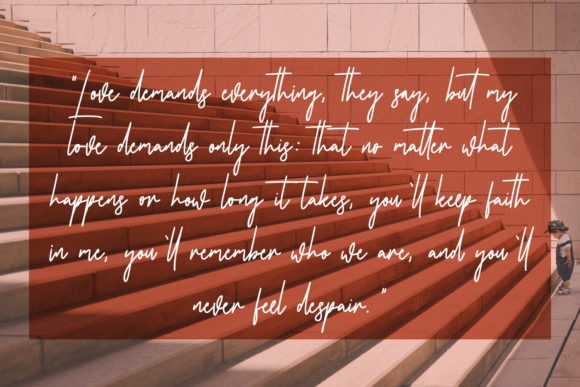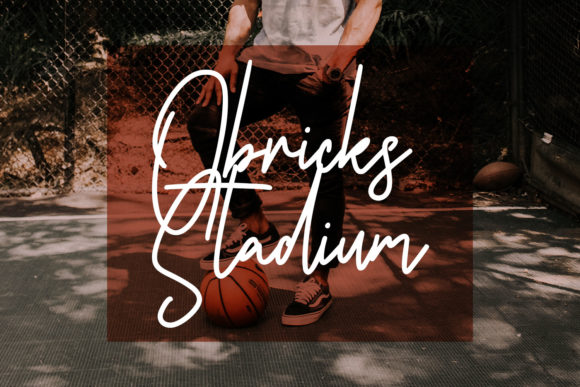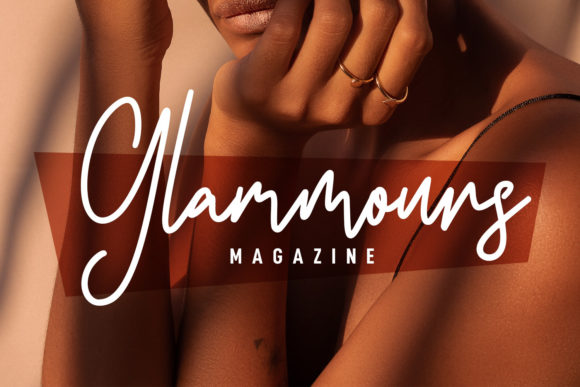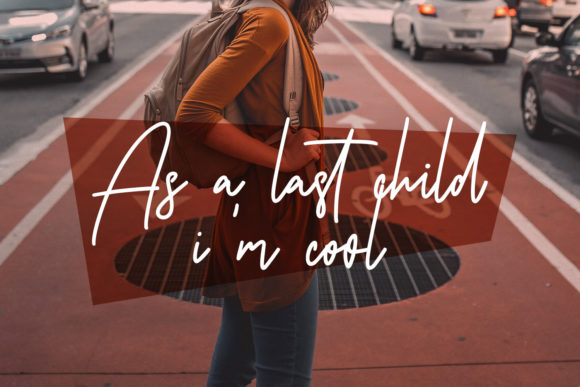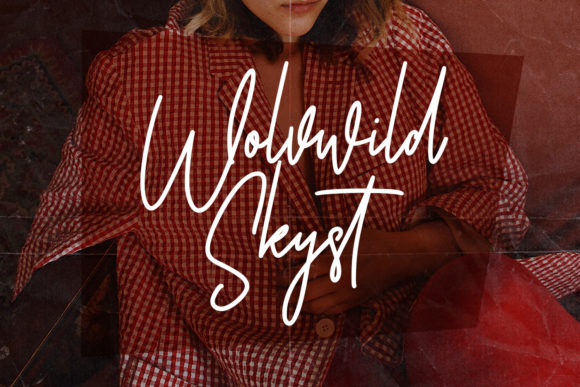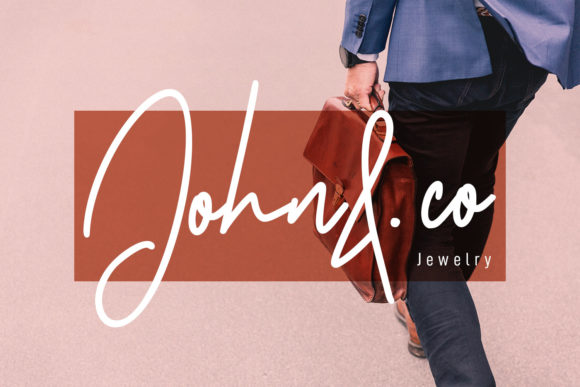
Betsyclove Font: Add a Touch of Romance to Your Designs
Are you looking for a font that can add a romantic feel to your designs? Look no further than Betsyclove, an enchanting handwritten font that is perfect for a wide range of applications. From greeting cards to headlines, Betsyclove is a versatile script font that is sure to captivate your audience.
The Charm of Betsyclove
Betsyclove is a beautifully crafted font that exudes elegance and sophistication. Its handwritten style gives it a personal and intimate feel, making it perfect for designs that require a touch of warmth and personality. The font’s flowing curves and delicate lines create a sense of movement and fluidity, adding a dynamic touch to any design.
One of the best things about Betsyclove is its versatility. This font can be used for a wide range of applications, from:
- Greeting cards: Add a personal touch to your greeting cards with Betsyclove’s elegant and cursive script.
- Headlines: Make your headlines stand out with Betsyclove’s bold and eye-catching style.
- Logos: Create a unique and memorable logo for your brand with Betsyclove’s distinctive and sophisticated font.
- Social media graphics: Add a touch of elegance to your social media graphics with Betsyclove’s beautiful and flowing script.
- Invitations: Create stunning invitations for weddings, parties, and other special events with Betsyclove’s romantic and whimsical style.
Why Choose Betsyclove?
So, why choose Betsyclove over other fonts? Here are just a few reasons:
- Unique and distinctive: Betsyclove is a one-of-a-kind font that will set your designs apart from the rest.
- Elegant and sophisticated: Betsyclove’s elegant and sophisticated style makes it perfect for designs that require a touch of luxury and refinement.
- Easy to read: Despite its elegant style, Betsyclove is easy to read and understand, making it perfect for body text and headlines.
- Highly versatile: Betsyclove can be used for a wide range of applications, from digital designs to print materials.
Tips for Using Betsyclove
Here are a few tips for getting the most out of Betsyclove:
- Use it sparingly: While Betsyclove is a beautiful font, it can be overwhelming if used too much. Use it sparingly to add a touch of elegance to your designs.
- Pair it with other fonts: Betsyclove pairs well with other fonts, such as sans-serif fonts and serif fonts. Experiment with different pairings to find the perfect combination.
- Experiment with colors: Betsyclove looks great in a variety of colors, from bold and bright to soft and pastel. Experiment with different colors to find the perfect shade for your design.
In conclusion, Betsyclove is a beautiful and versatile font that is perfect for designers and crafters looking to add a touch of romance to their designs. With its elegant and sophisticated style, Betsyclove is sure to captivate your audience and set your designs apart from the rest. So why not give Betsyclove a try and see the magic for yourself?
Whether you’re a seasoned designer or a crafty DIY enthusiast, Betsyclove is a font that is sure to inspire and delight. So go ahead, get creative, and see what amazing designs you can create with Betsyclove!